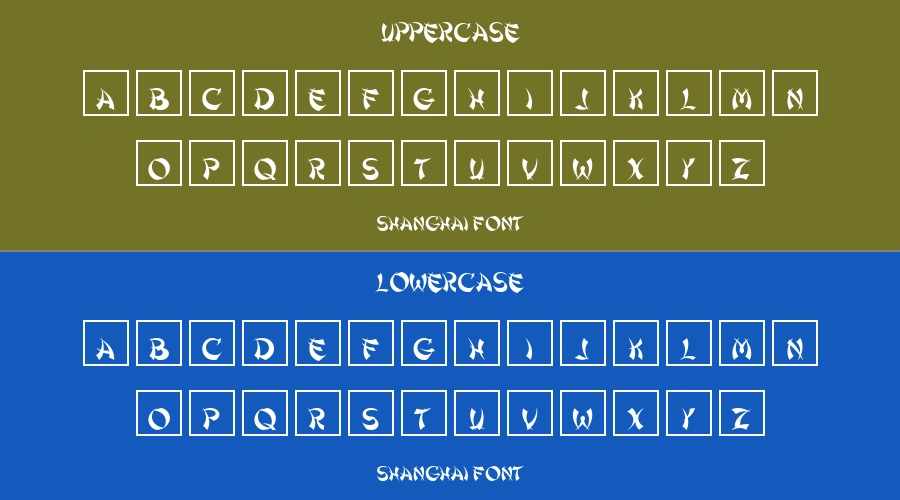
About Shanghai Font
Shanghai Font stands out for its distinctive combination of elegant spacing and recall value. Ideal for web design, it provides the impact and reliability that professional projects demand. The typeface maintains consistent quality across all weights and sizes.
Key features include refined calligraphic influence and practical dingbat elements, enhancing typographic expression. In event graphics applications, Shanghai Font demonstrates exceptional multi-language support. The joint construction and technical innovation contribute to its distinctive character and professional appeal.